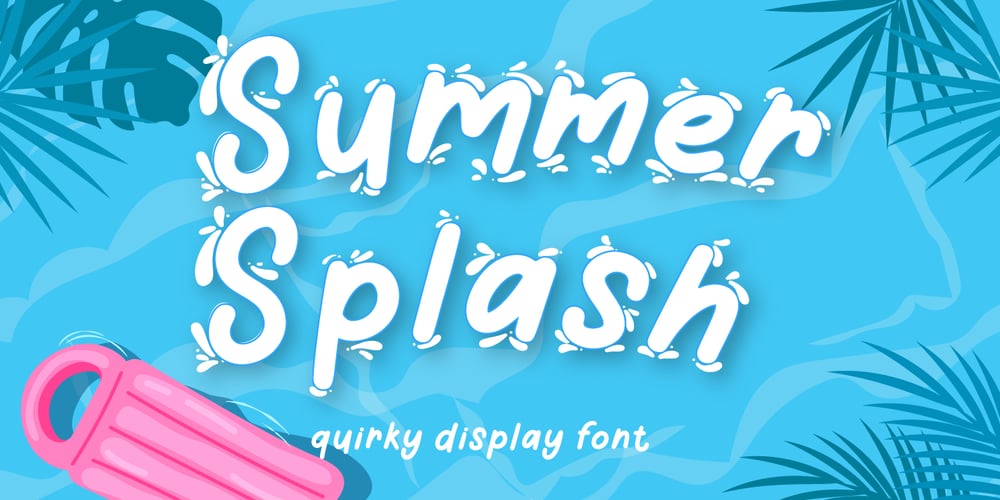
Summer Splash Font Family was designed by Fadli Ramadhan Iskandar and published by Attype Studio. Summer Splash contains 2 styles and family package options. Summer Splash is display font of splashing water, come up with two font regular and display. This font is perfect for branding, logos, invitations, stationery, social media posts, product packaging, merchandise, blog designs, game titles, cute style design, book covers and more. A set of 6 ligatures is also included.